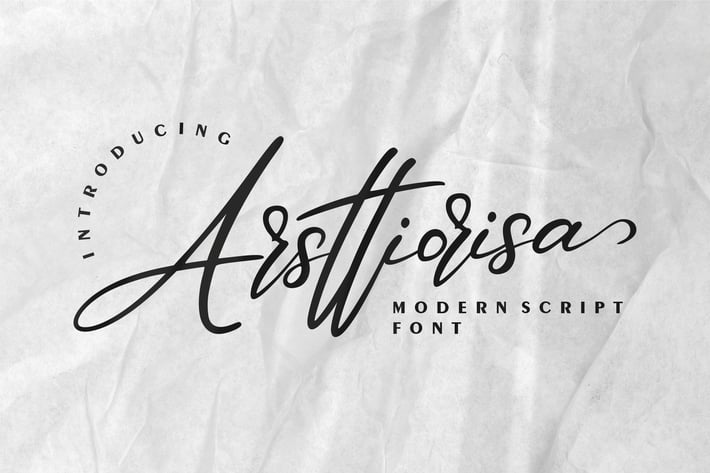
Arsttiorisa | Modern Script Font
Arsttiorisa | Modern Script Font with a calligraphy style, So beautiful on invitation like greeting cards, branding materials, business cards, quotes, posters, and more!